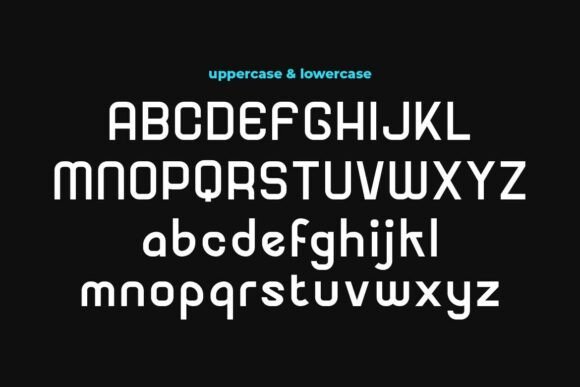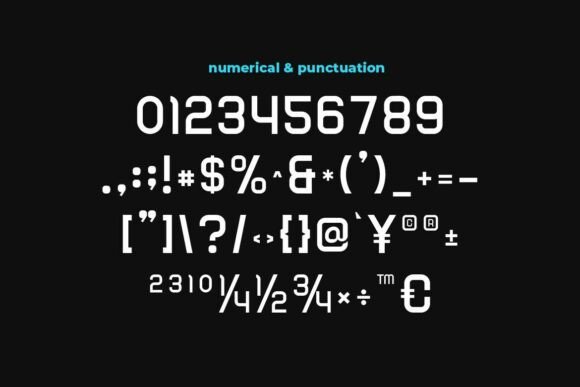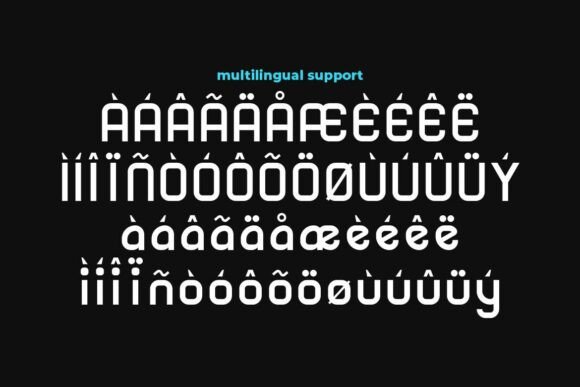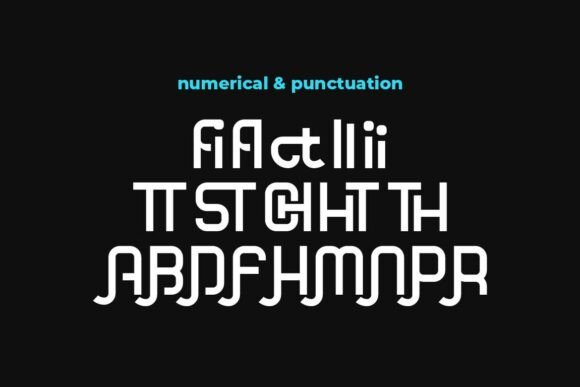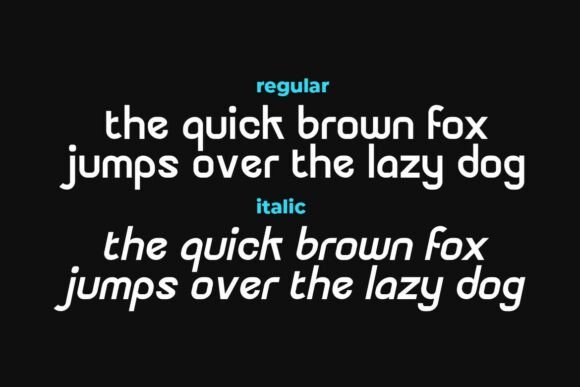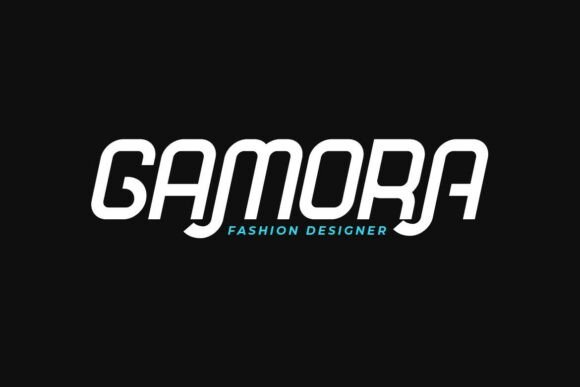
Introduction to Randu Madu Font
Randu Madu is a clean and versatile sans serif font that combines simplicity, balance, and modern sophistication.
With its soft curves, geometric proportions, and well-crafted details, Randu Madu delivers a fresh and stylish look for a wide range of design applications .
Key Features of Randu Madu Font